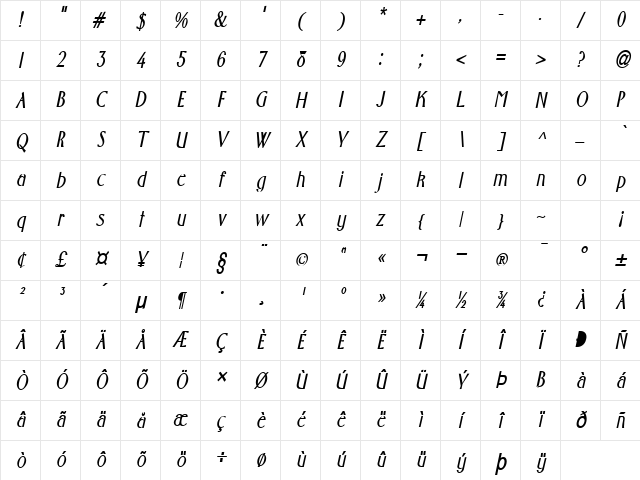
Complete Wright-Condensed Bold Italic glyph index. Displaying only characters natively supported by Wright-Condensed Bold Italic font.
Wright-Condensed is a composed and adaptable typeface that performs quietly and consistently across a wide range of design contexts. The slanted form adds forward momentum and visual energy. Its bold stroke weight gives it real presence on the page. Its narrow stance lets it pack a punch even in space-constrained designs.
Pro Tip: Use Wright-Condensed for emphasis, pull quotes, and subheadings where its slanted energy can add rhythm to the layout.